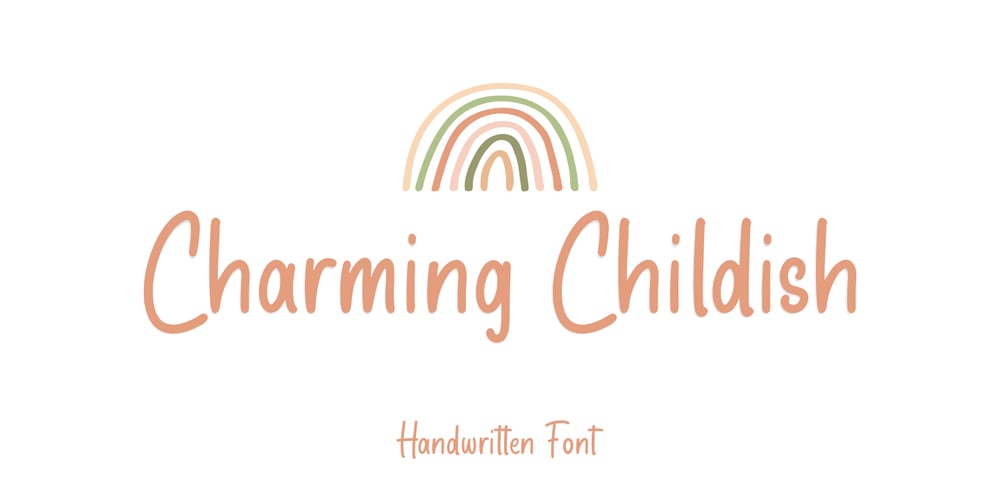
Charming Childish Font Family was designed by Muhammad Fikry and published by Fikryal. Charming Childish contains 1 styles and family package options. Charming Childish is a handwritten font perfect for crafting, branding, invitation, stationery, wedding designs, social media posts, advertisements, product packaging, product designs, label, photography, watermark, special events, or anything.Charming Childish comes with a full set of uppercase and lowercase letters, multilingual symbols, numerals and punctuation.